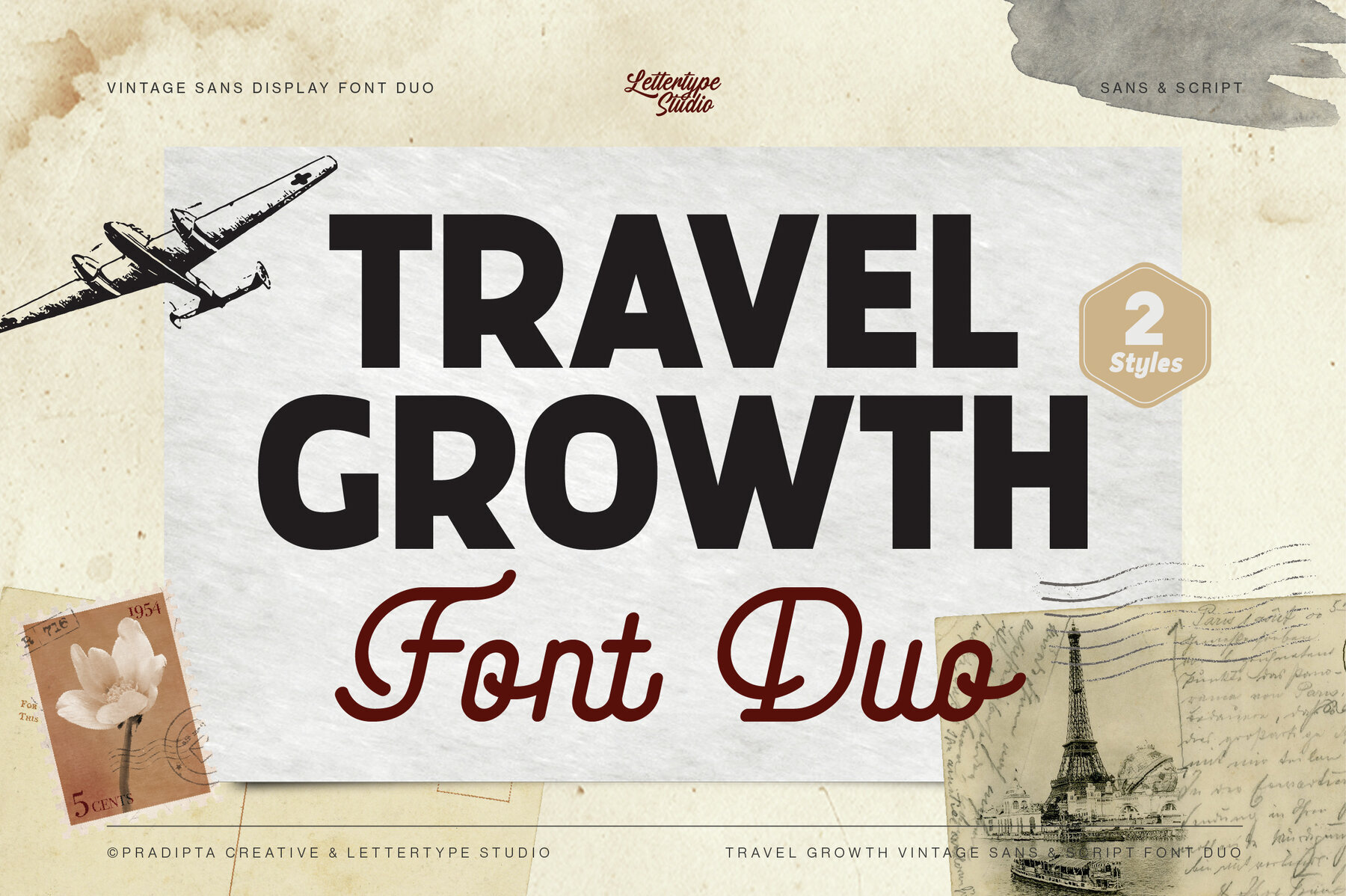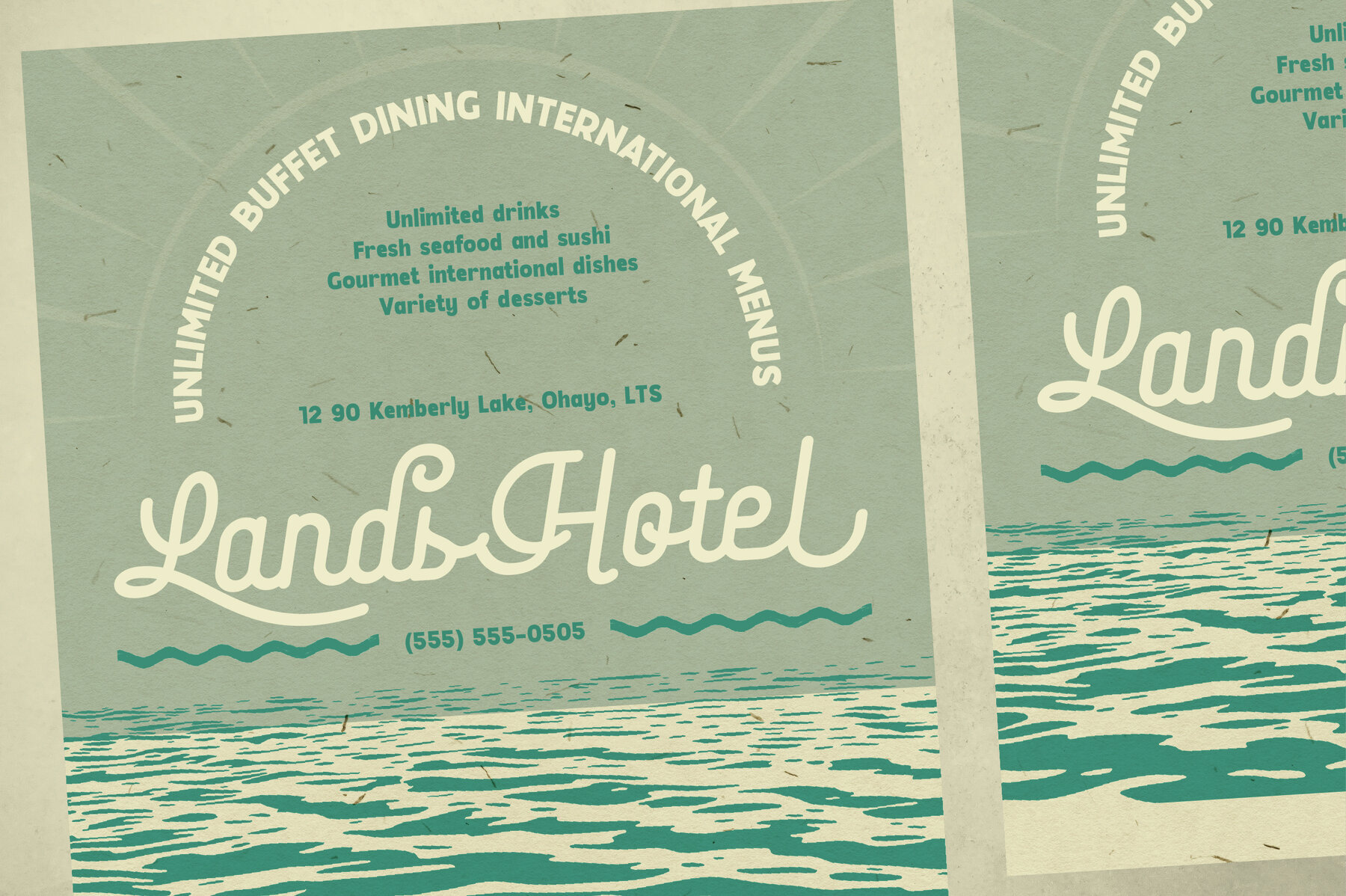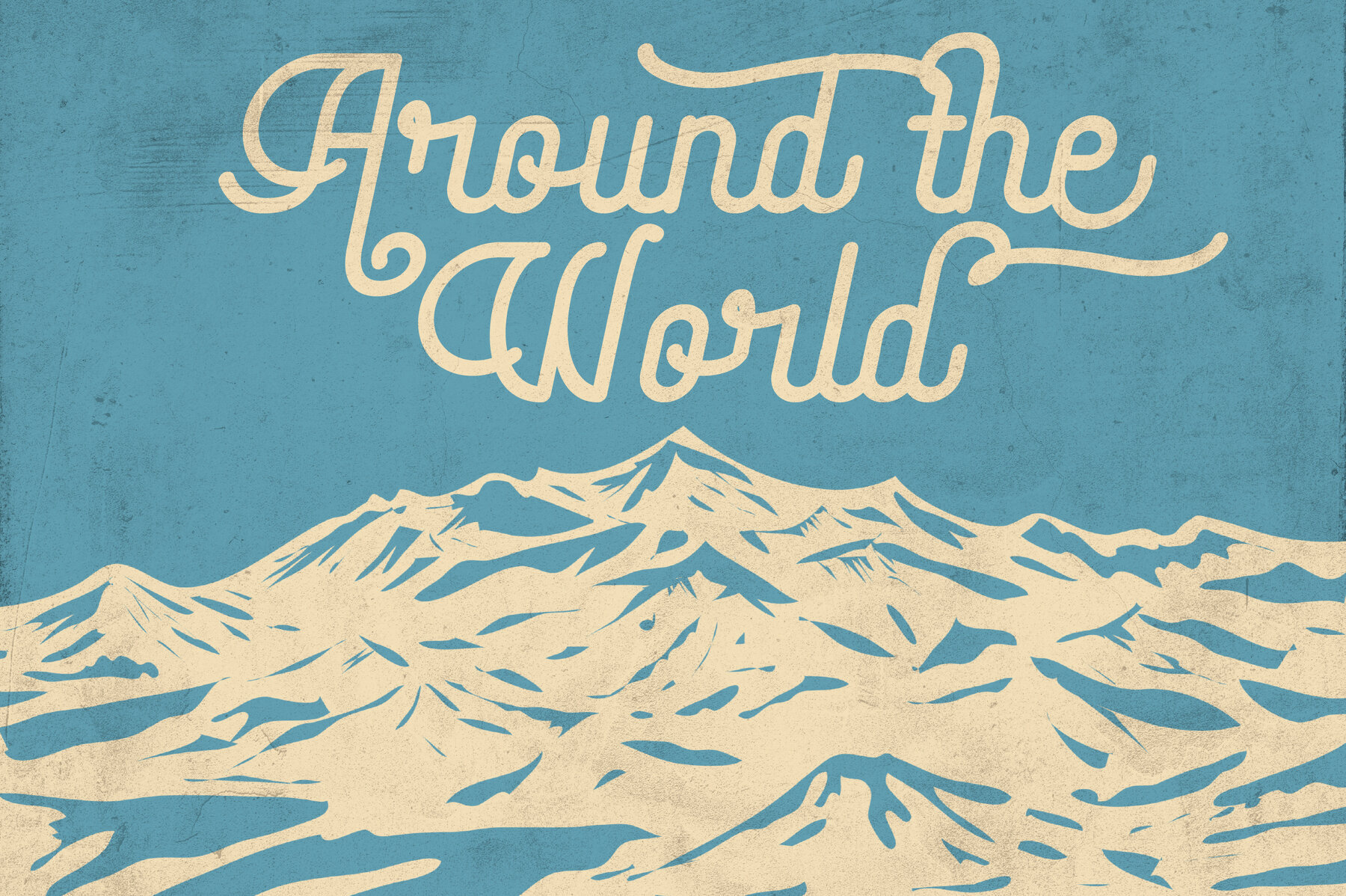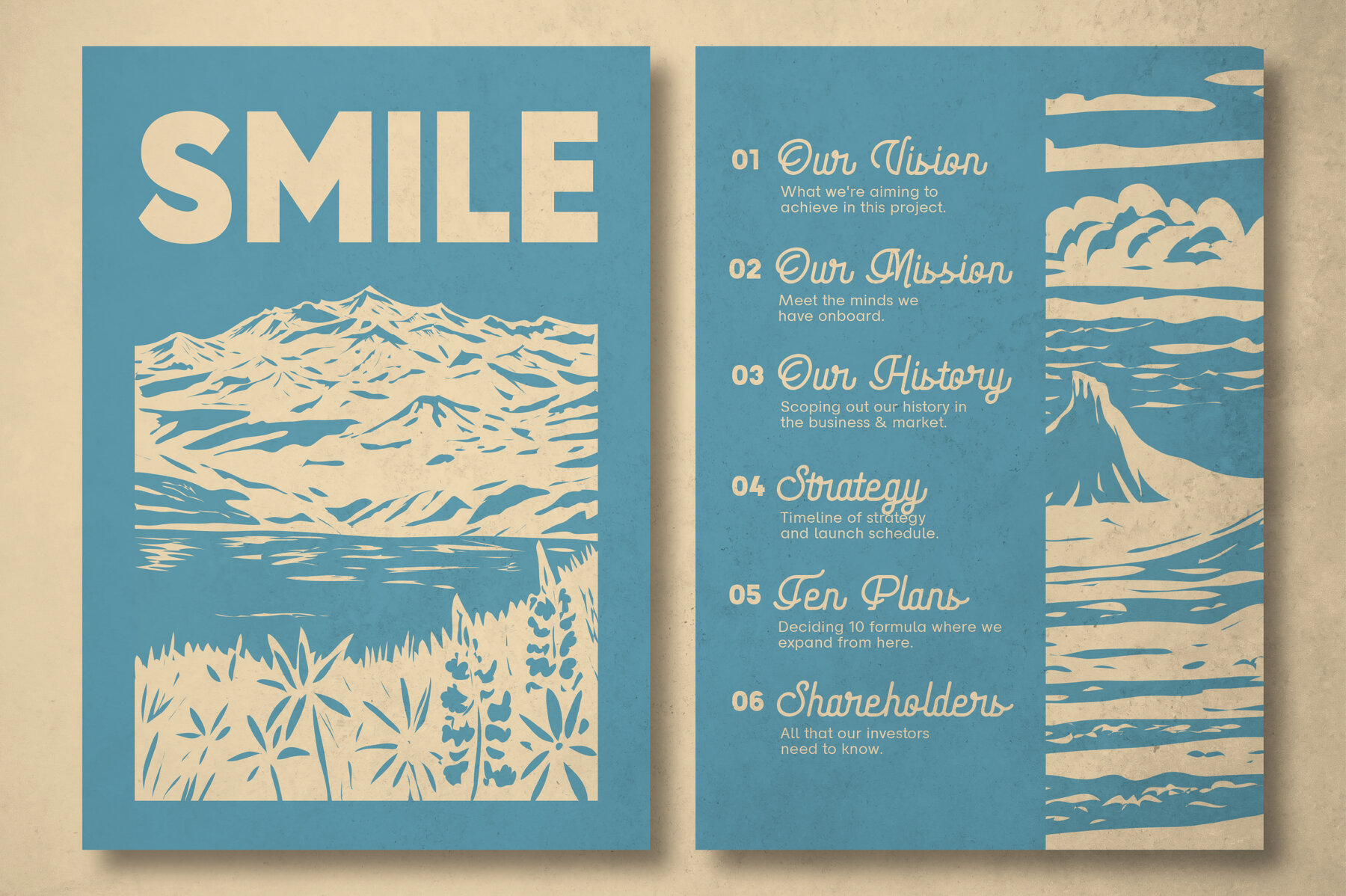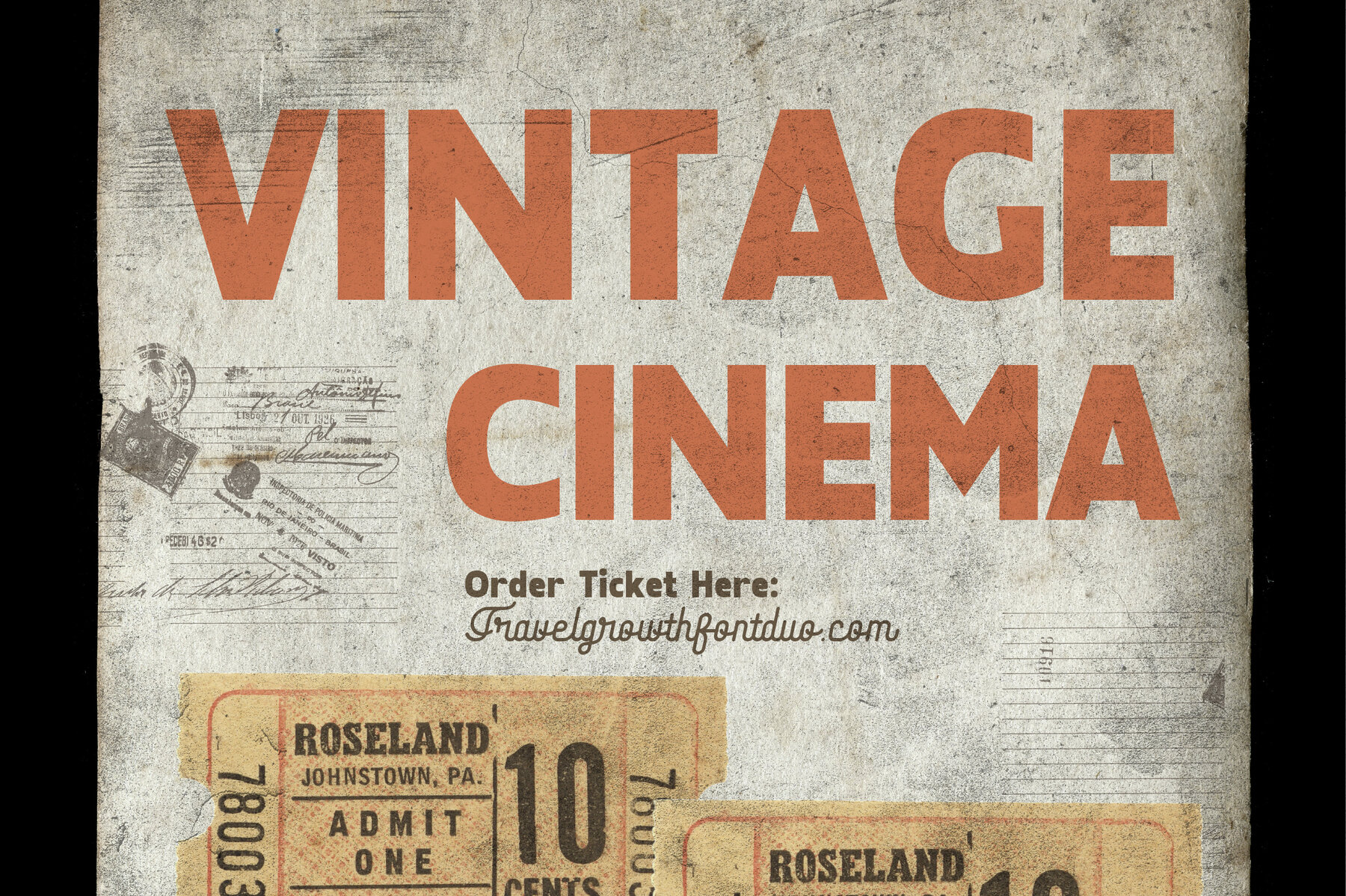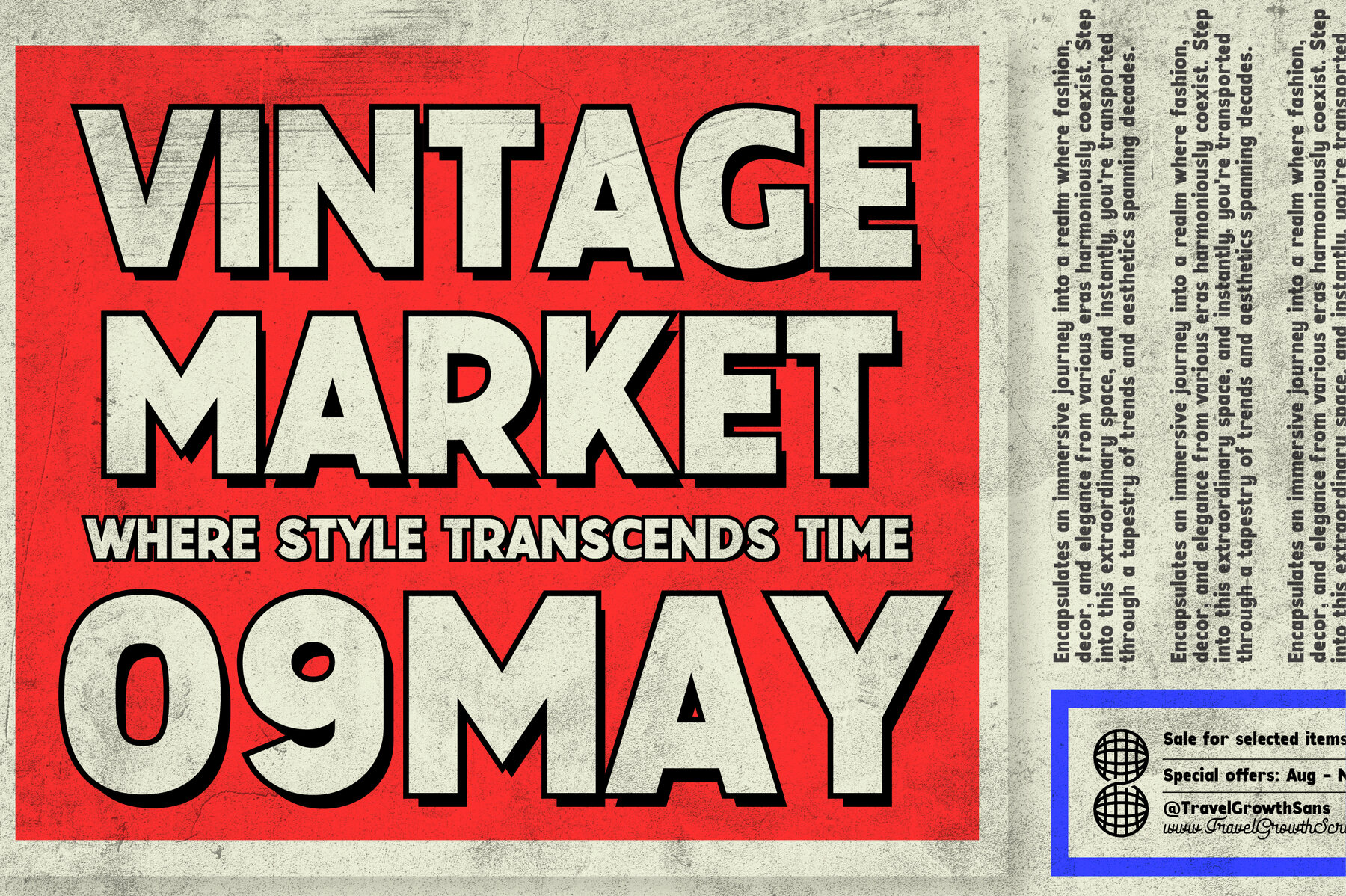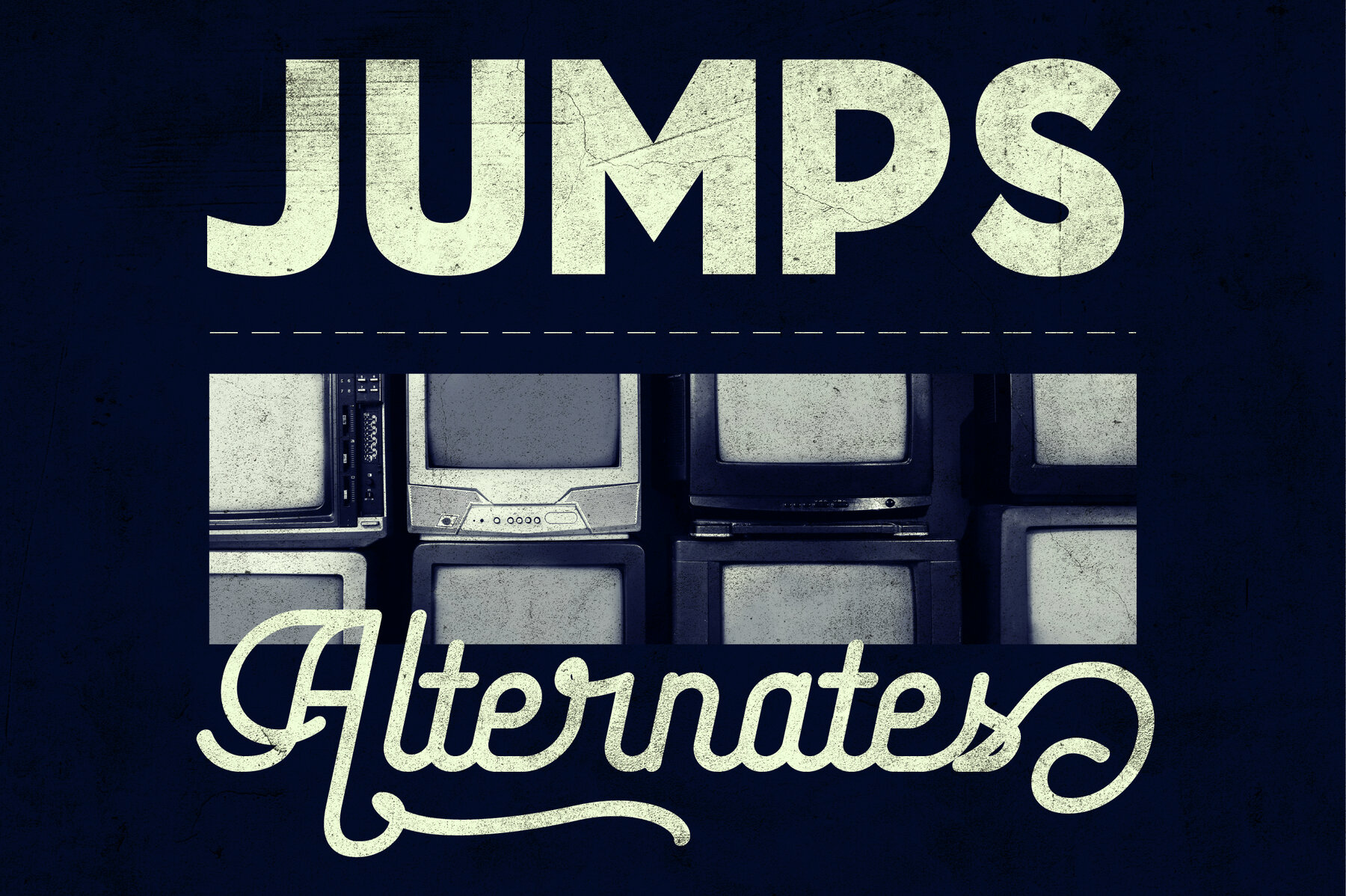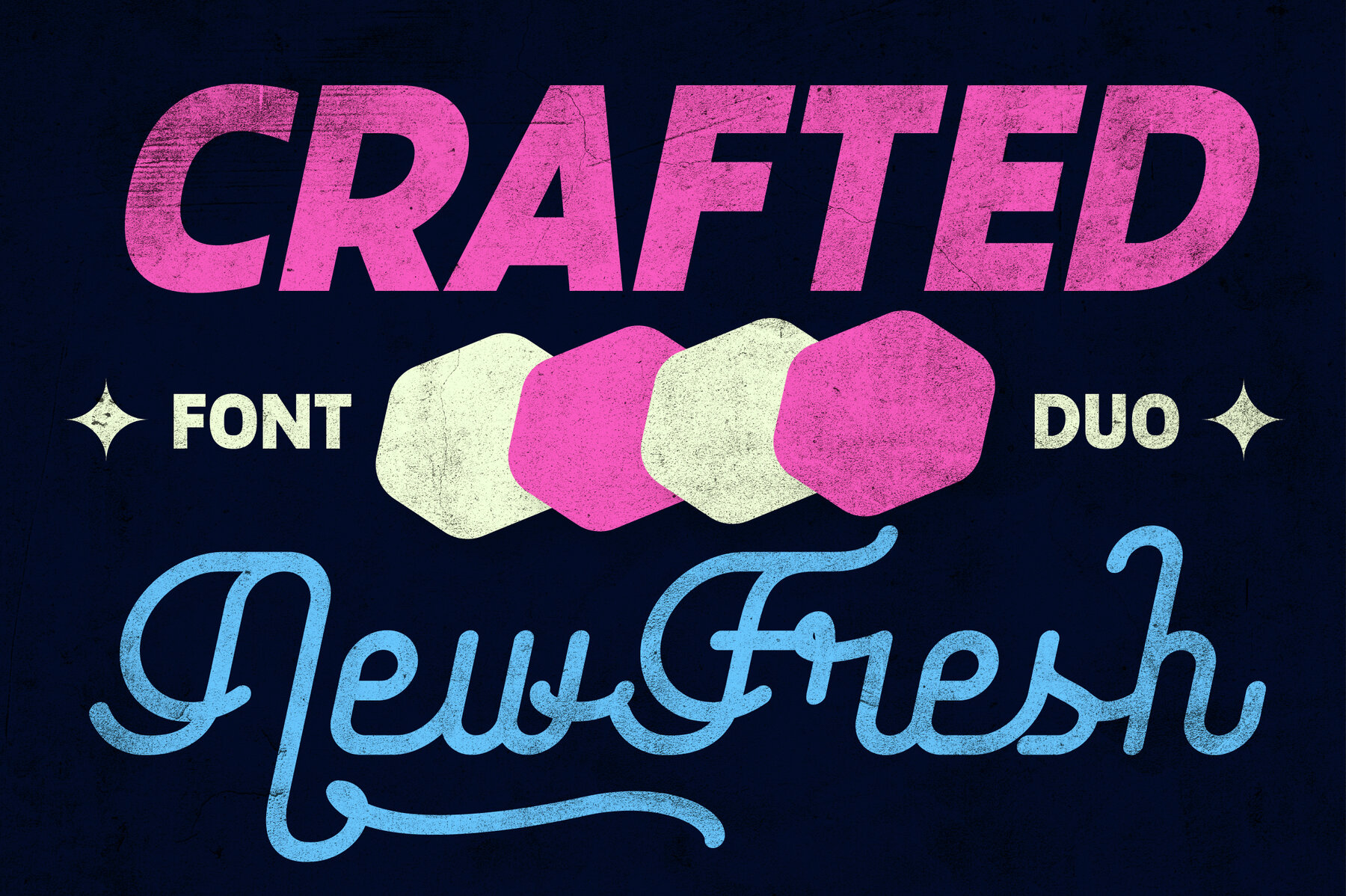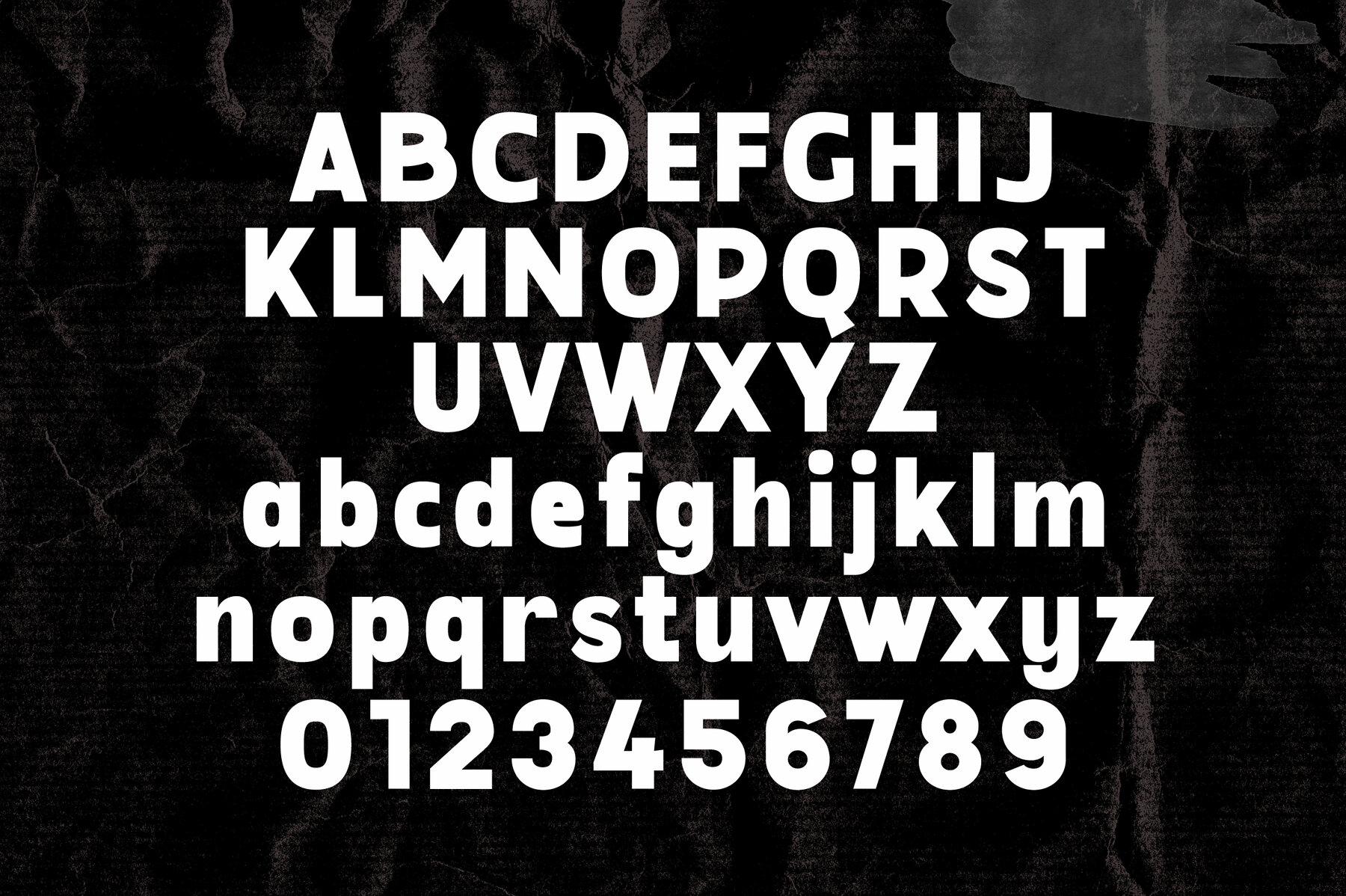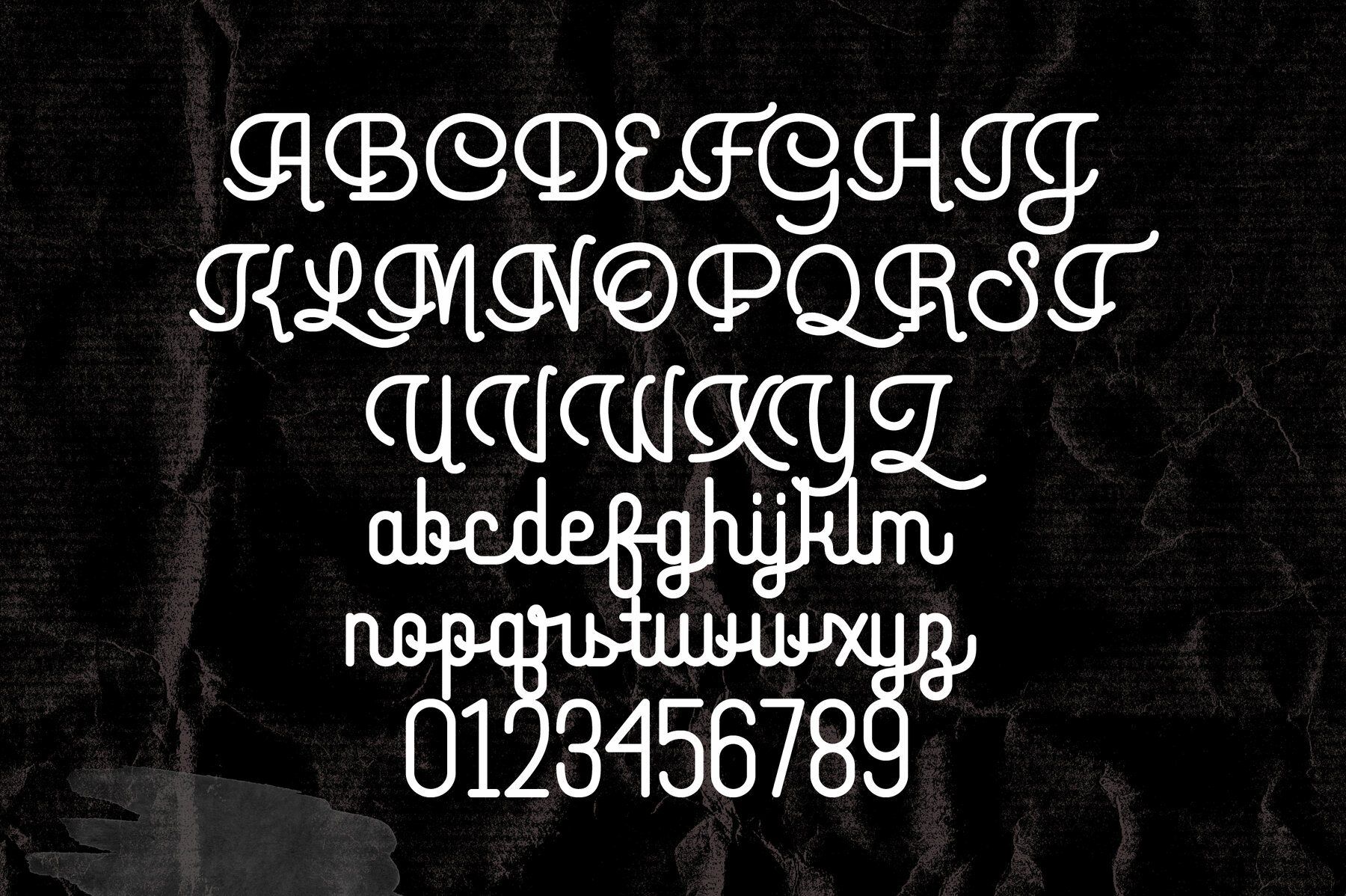
Travel Growth Font Duo
Travel Growth Sans Regular
Travel Growth Script Regular
Travel Growth Sans Italic
Travel Growth Script Italic
Drawing inspiration from the iconic travel posters of the 20th century, the Travel Growth Vintage Font Duo elegantly combines rounded script with a prominent x-height, subtly nodding to Art Nouveau influences. This harmonious duo, designed for both readability and style, merges contemporary appeal with a bold, distinctive character. Features: Ideal for professionals in branding, web design, packaging, or editorial layout, this font duo presents a rich blend of vintage elegance and modern versatility. From commanding and impactful to sleekly minimalist designs, these fonts ensure your creative projects remain sophisticated and on-trend.Travel Growth: A Vintage Font Duo Inspired by 20th-Century Typography